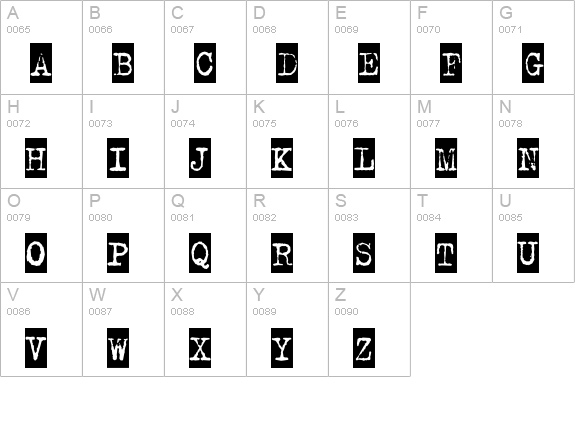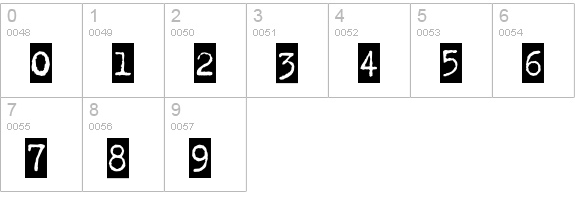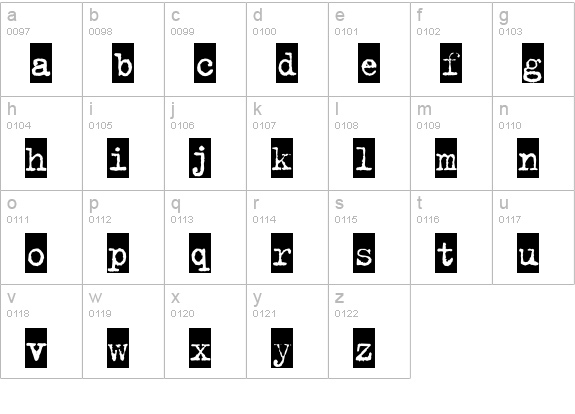
Trixie-Cameo Font Details
Introducing the captivating Trixie-Cameo font, a true gem in the world of typography. This enchanting typeface embodies both elegance and playfulness, making it the perfect choice for a wide range of creative projects. With its delicate curves and intricate details, Trixie-Cameo effortlessly captures attention and adds a touch of sophistication to any design. What sets Trixie-Cameo apart from other fonts is not only its stunning aesthetics but also its availability for free. That's right, you read it correctly - this extraordinary font can be yours without spending a dime. Thanks to the generosity of FontsMarket.com, Trixie-Cameo is freely available for download, allowing designers, artists, and enthusiasts alike to explore its endless possibilities. Whether you're designing a logo, creating eye-catching advertisements, or crafting beautiful invitations, Trixie-Cameo will undoubtedly elevate your work to new heights. Its versatility allows it to adapt effortlessly to various design styles, ensuring that your projects stand out from the crowd. The attention to detail in every letterform of Trixie-Cameo is truly remarkable. Each stroke is meticulously crafted, resulting in a harmonious balance between elegance and whimsy. Whether it's the graceful curves of the uppercase letters or the intricate serifs of the lowercase ones, this font exudes a sense of charm that is guaranteed to captivate any audience. Not only does Trixie-Cameo bring visual delight, but it also offers exceptional legibility. Even at smaller sizes, the clarity of this font remains intact, ensuring that your message is communicated effectively. This makes it a perfect choice for various print and digital applications, from branding and packaging to web design and social media graphics. With Trixie-Cameo, you have the opportunity to unleash your creativity and bring your ideas to life. So why wait? Head over to FontsMarket.com and freely download this extraordinary font. Let Trixie-Cameo be your companion in creating stunning designs that leave a lasting impression.